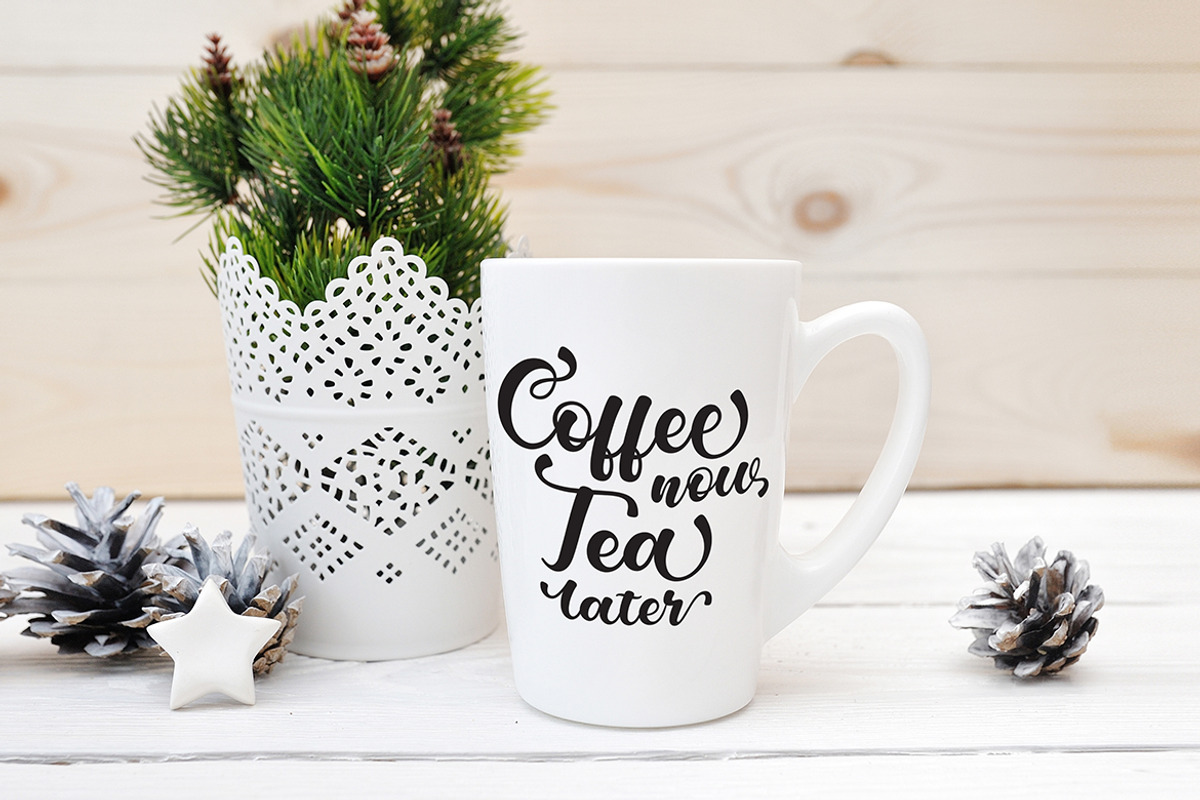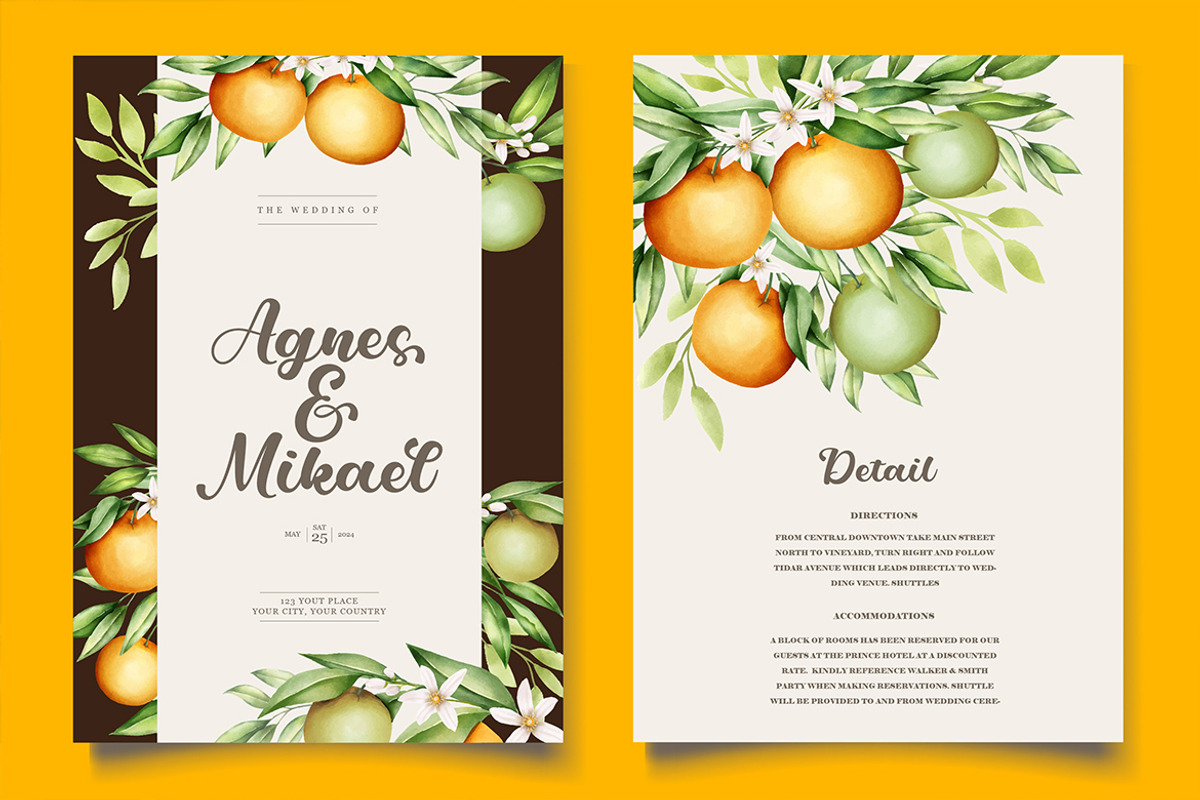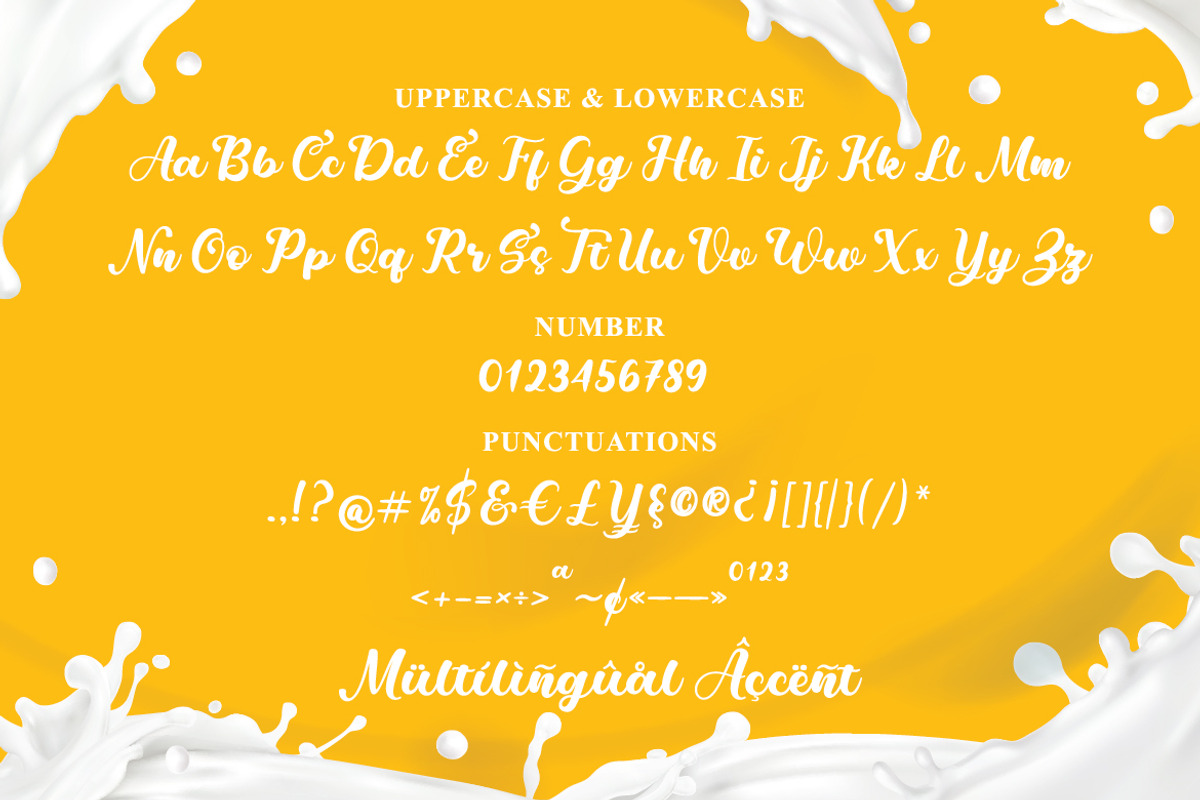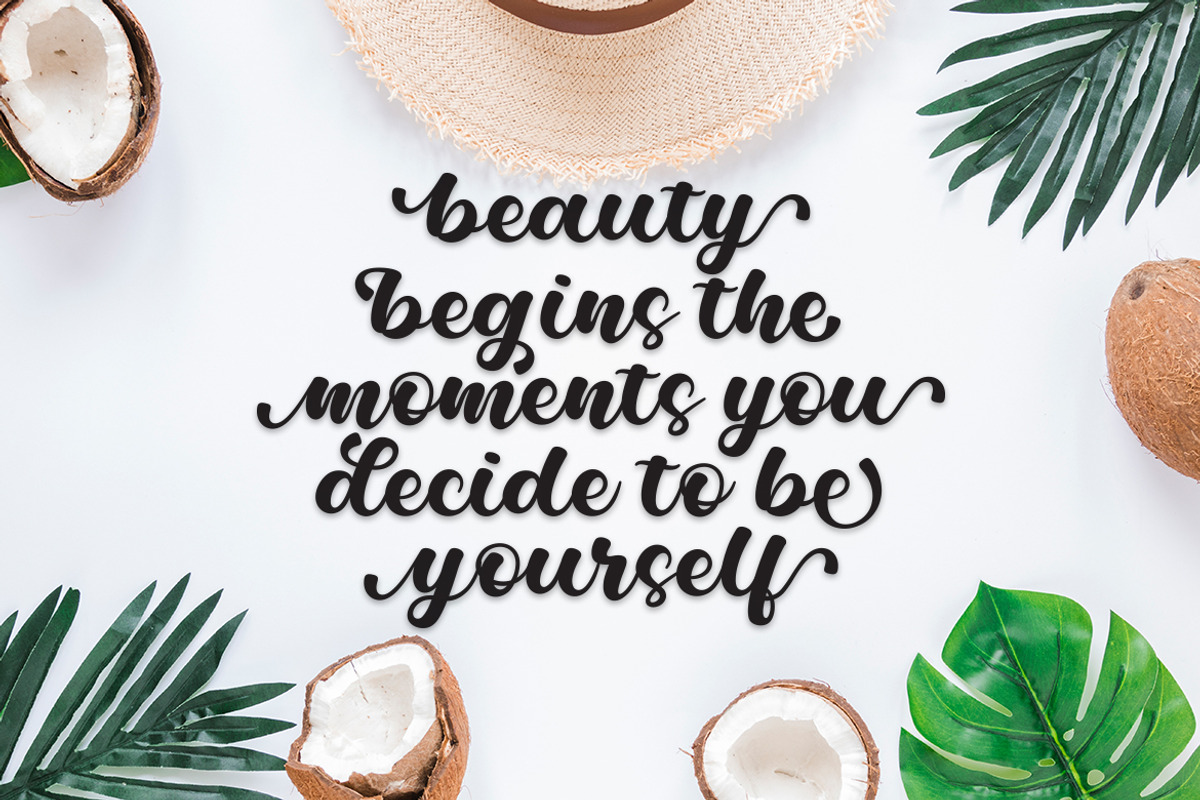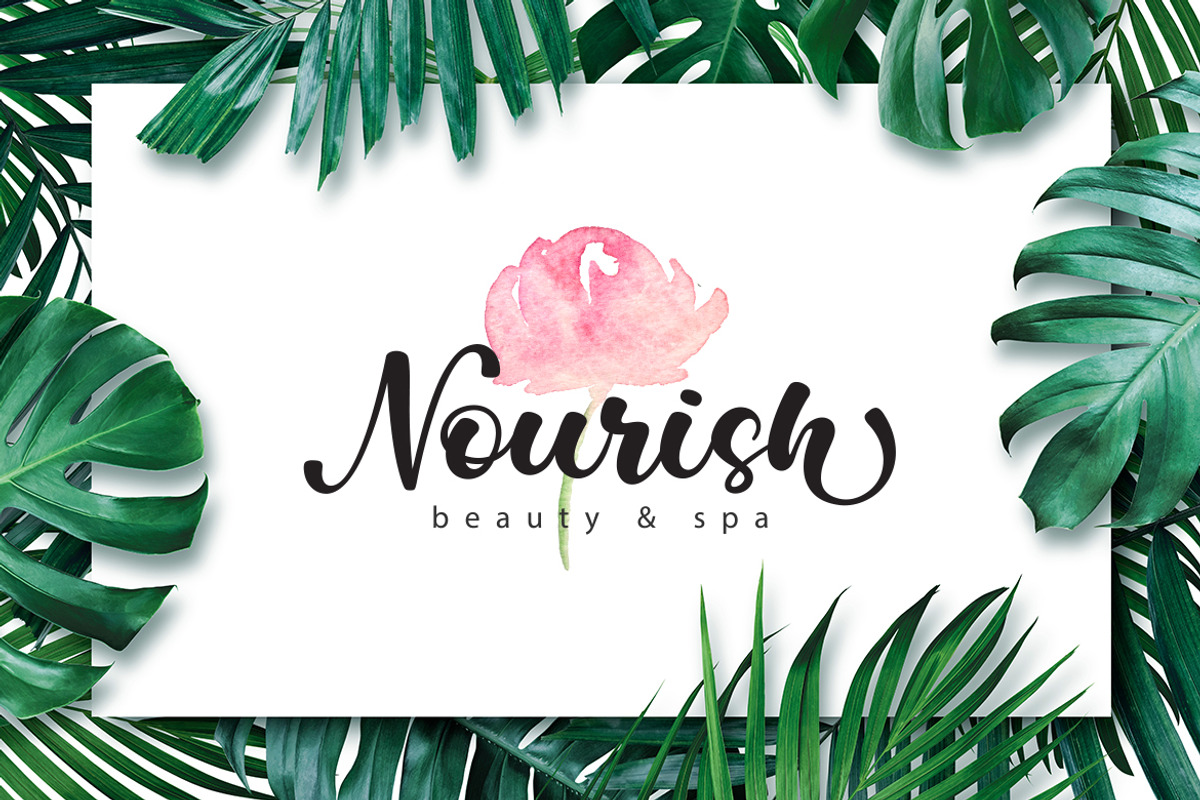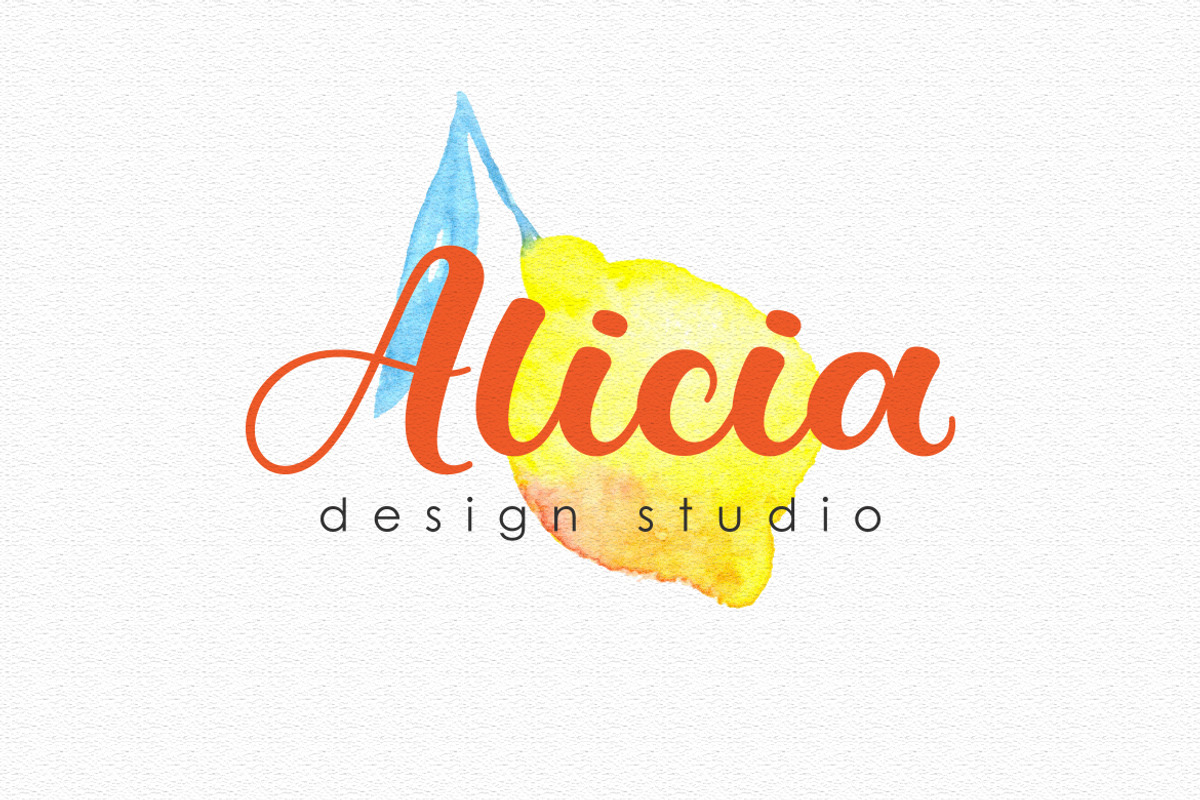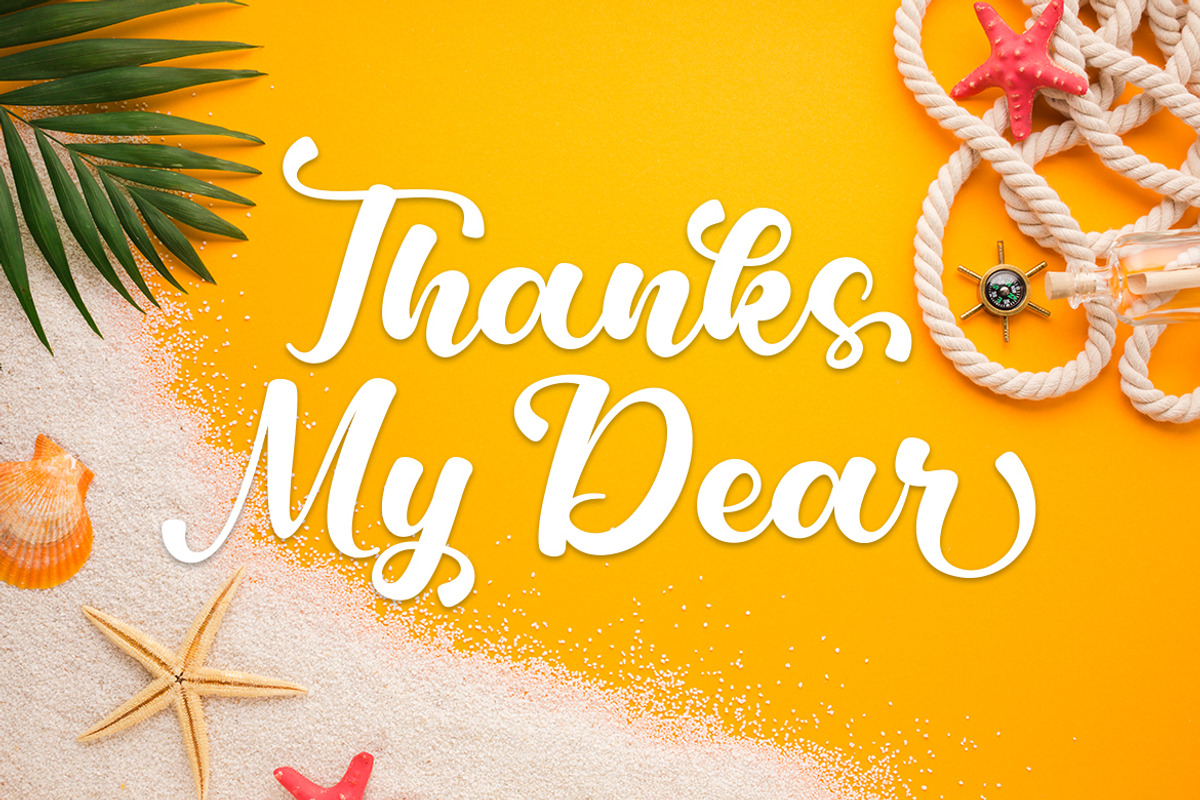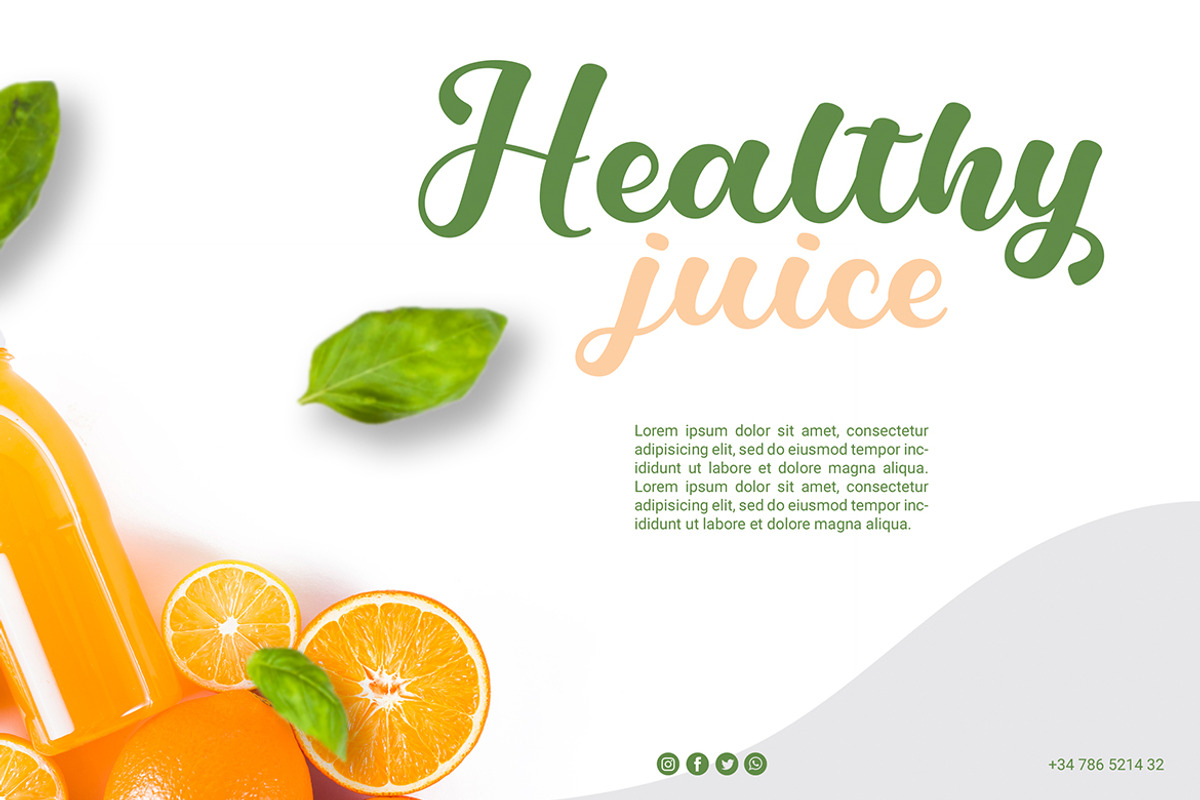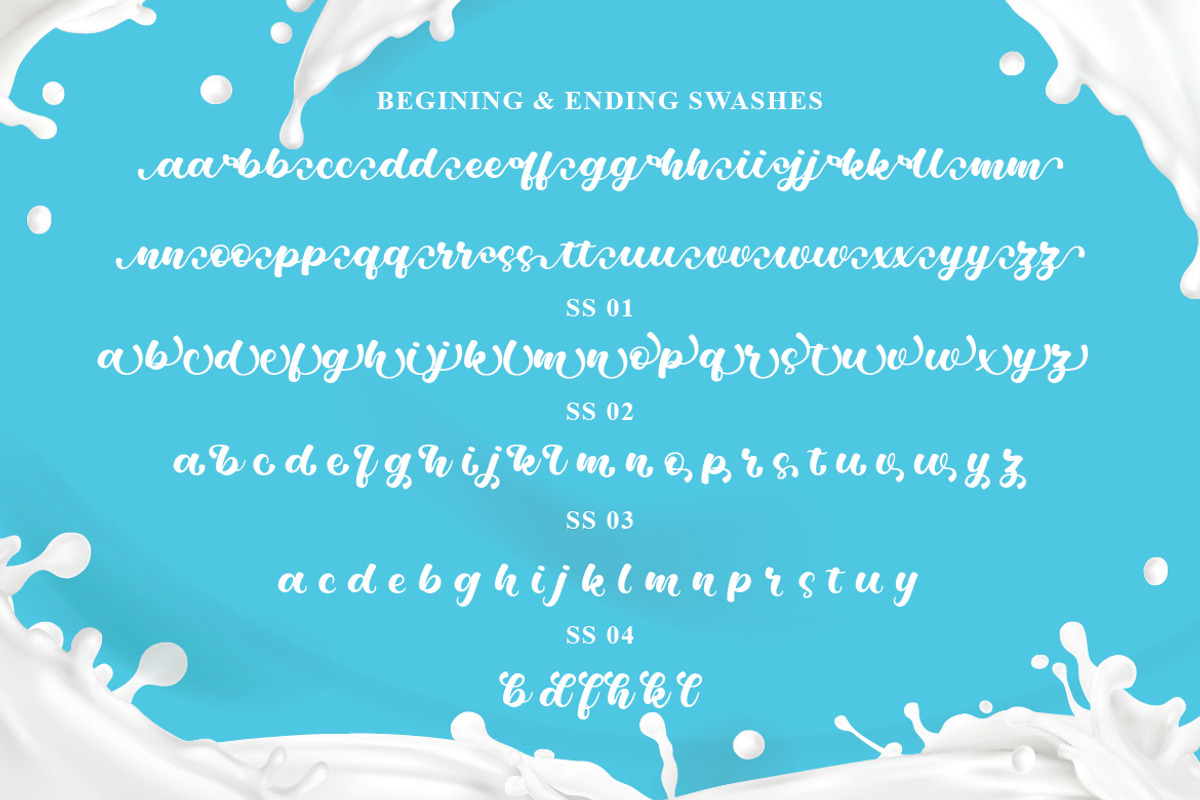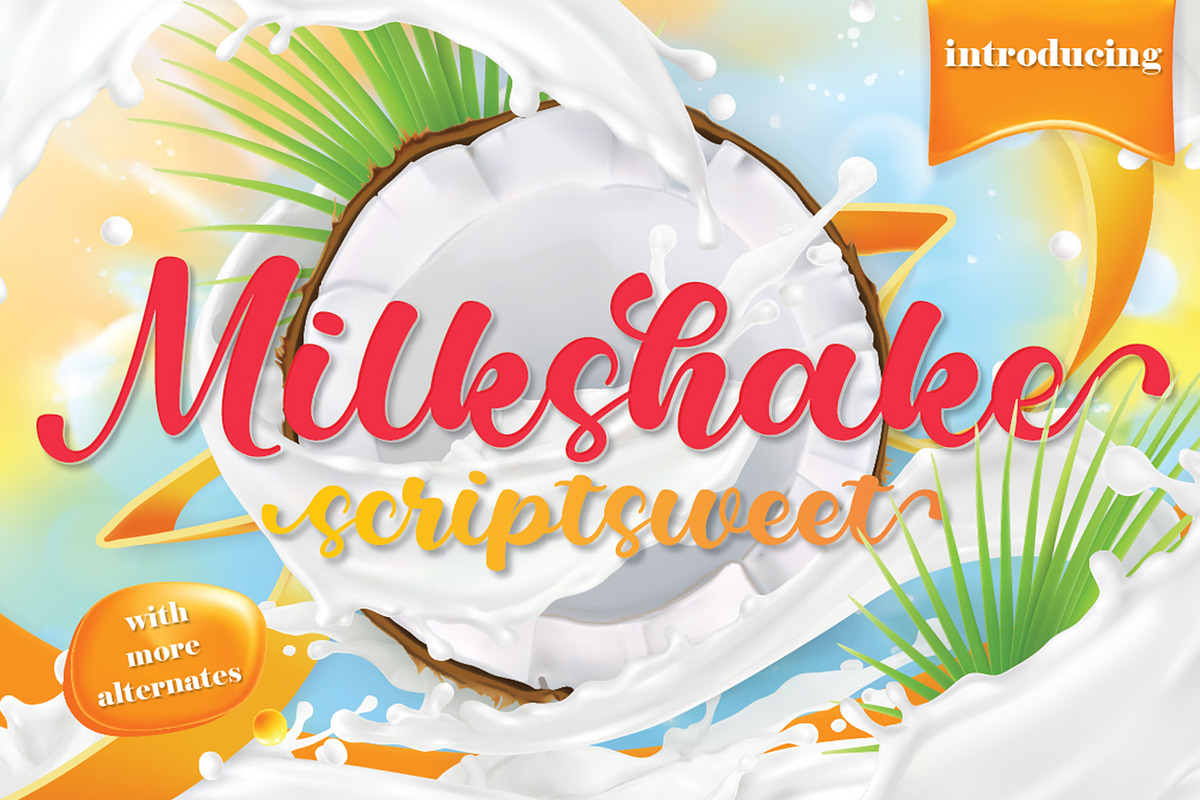
Milkshake Scriptsweet
Milkshake Scriptsweet is a beautiful script font with many alternative styles, this font looks natural, elegant and perfect for any extraordinary project.Milkshake Scriptsweet is suitable for various products such as invitations, product packaging, quotes, product design, crafter, labels, photography, watermarks, logos & branding.